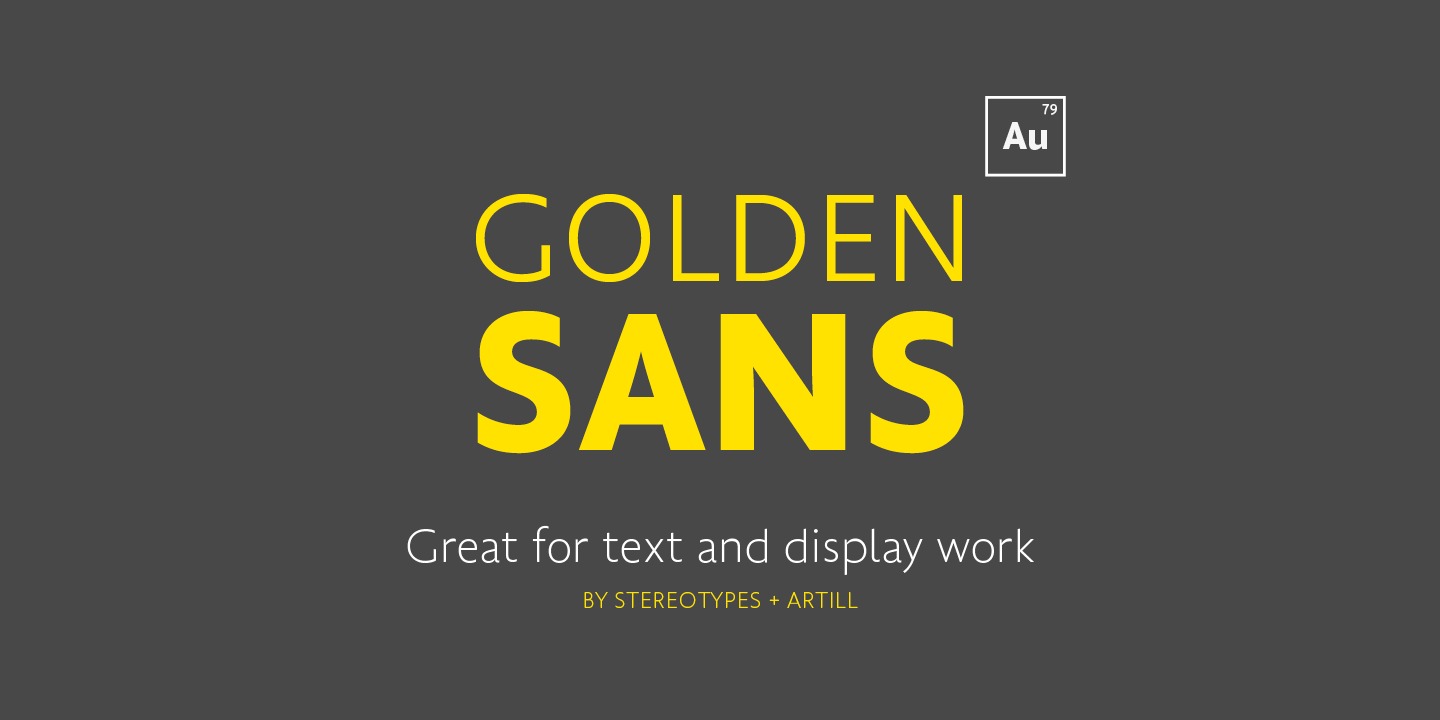
Golden Sans Font Family
Golden Sans Font Family is a stylish typeface that enhances visual appeal and works effortlessly in many design contexts. Golden Sans is a modern sans-serif typeface designed by Lukas Bischoff and Sascha Timplan, offering a clean and versatile look suitable for a wide range of design projects. The family includes seven weights—from Thin to Black— allowing designers to create balanced typography for both bold headlines and readable body text.
Designer: Lukas Bischoff, Sascha Timplan